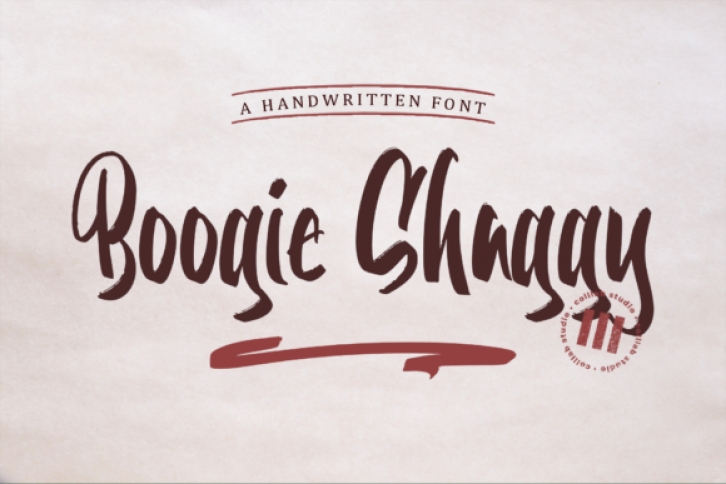
Boogie Shaggy is an incredibly unique and beautiful handwritten font. Fall in love with its incredibly versatile style and use it to create spectacular designs!